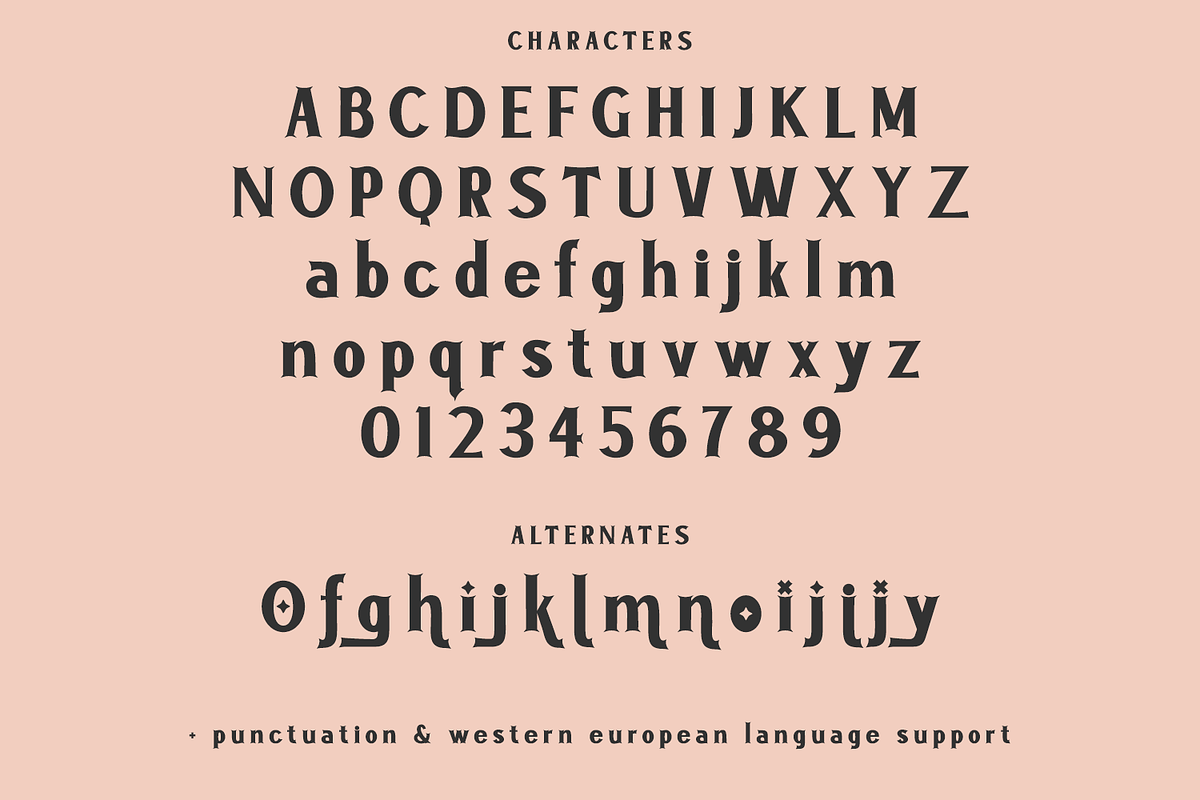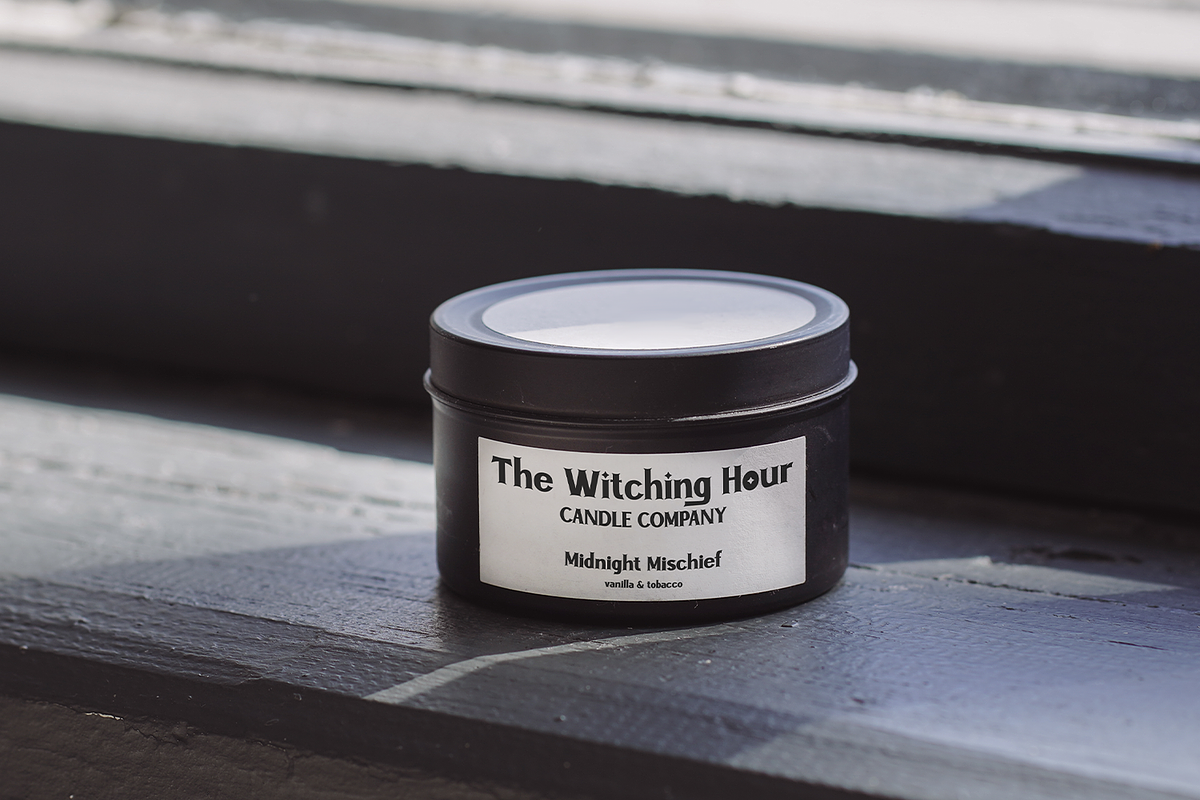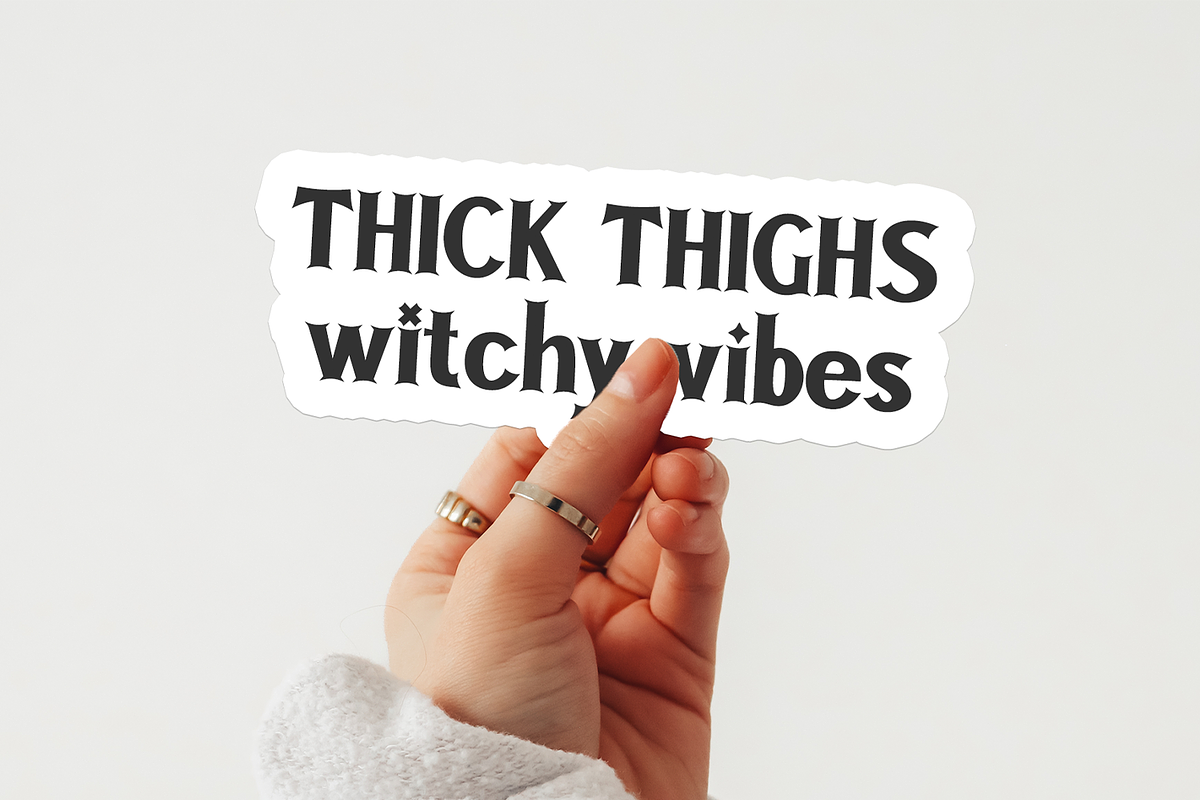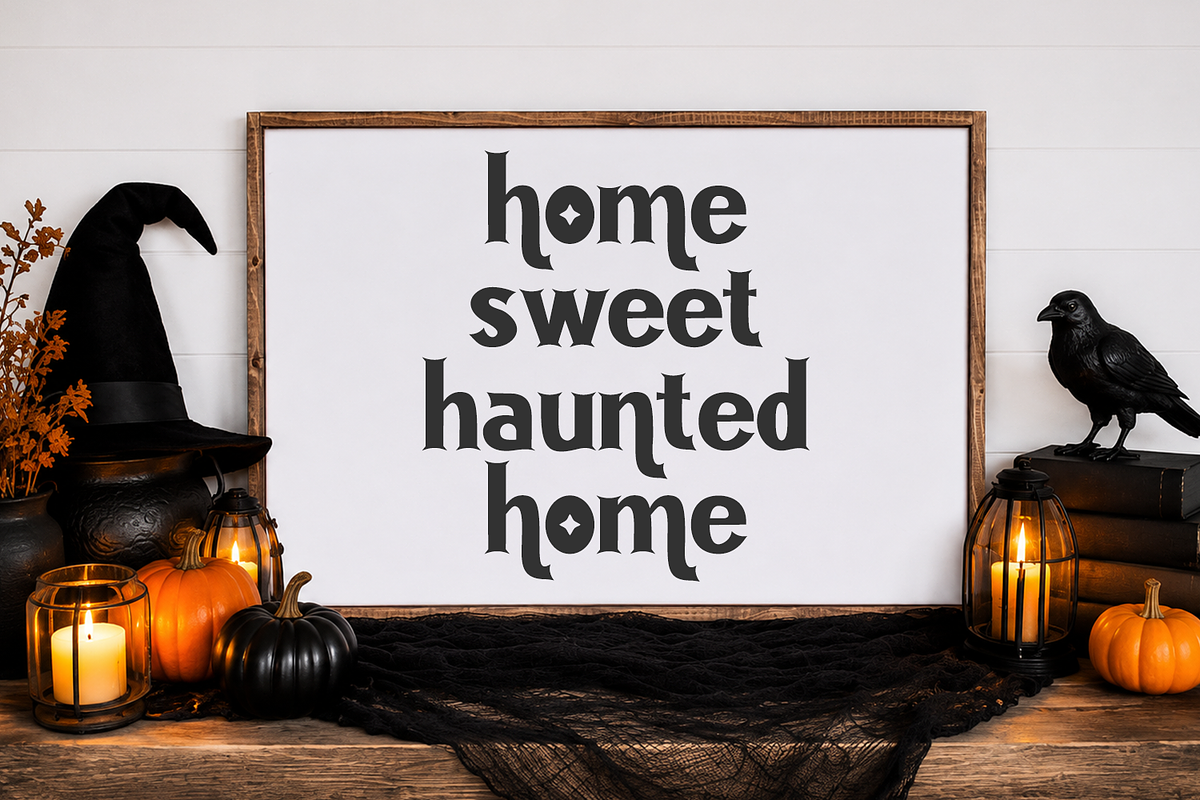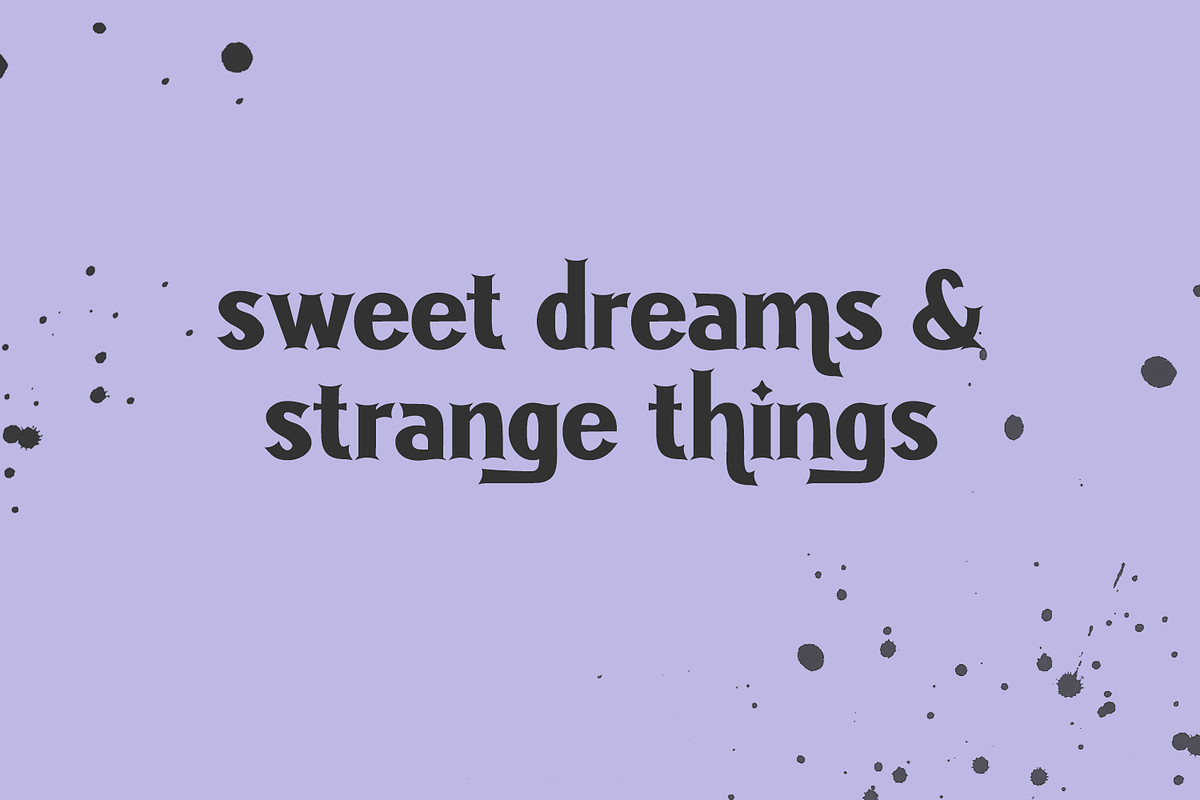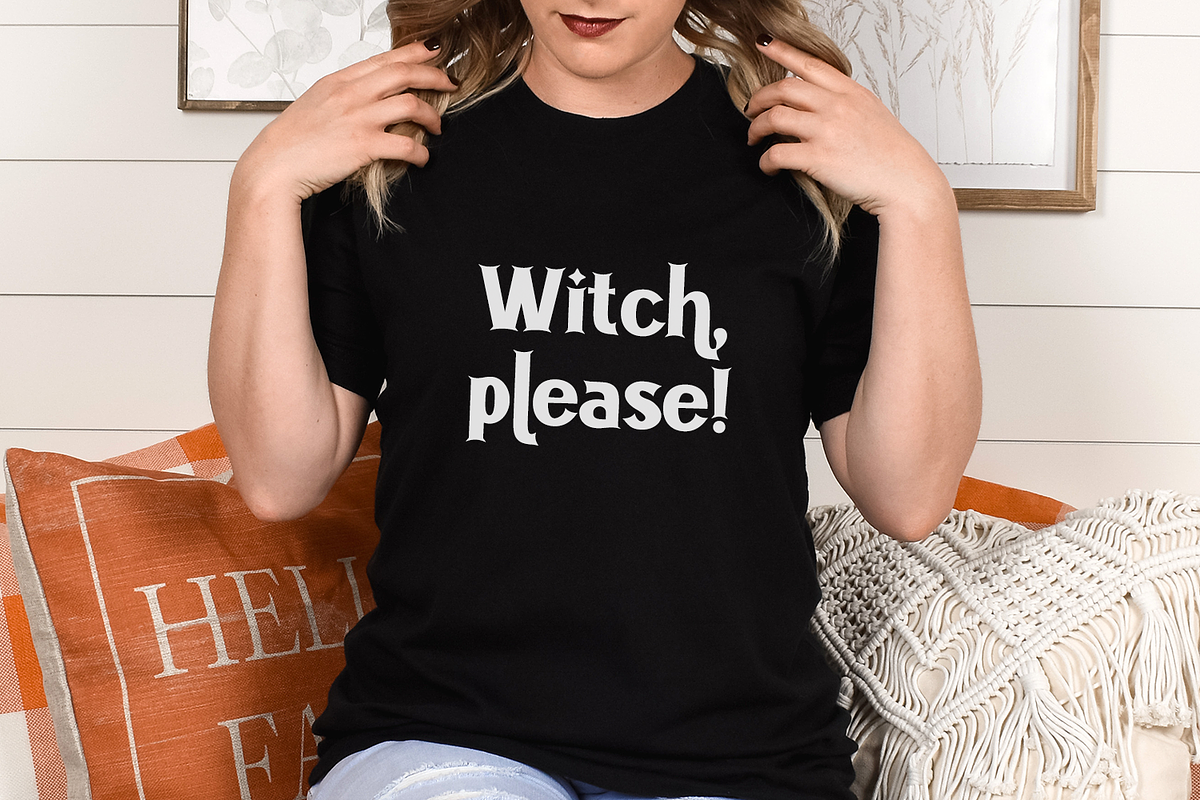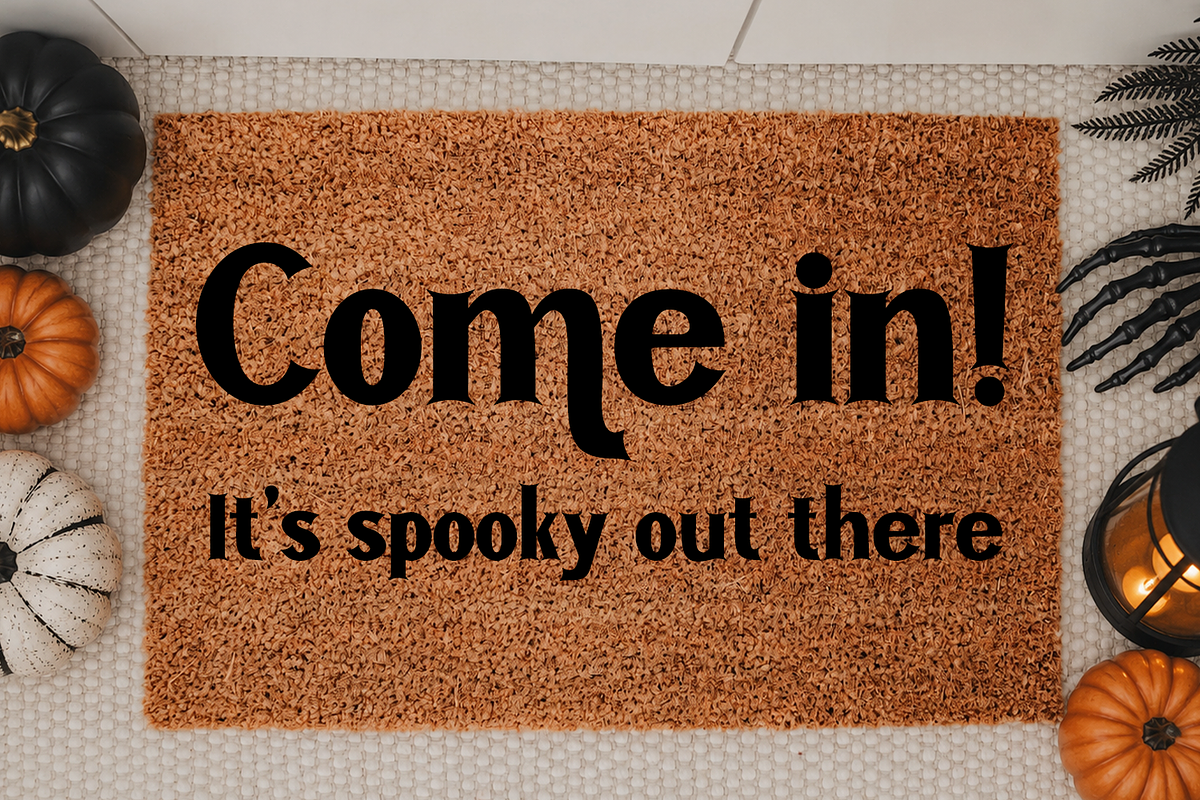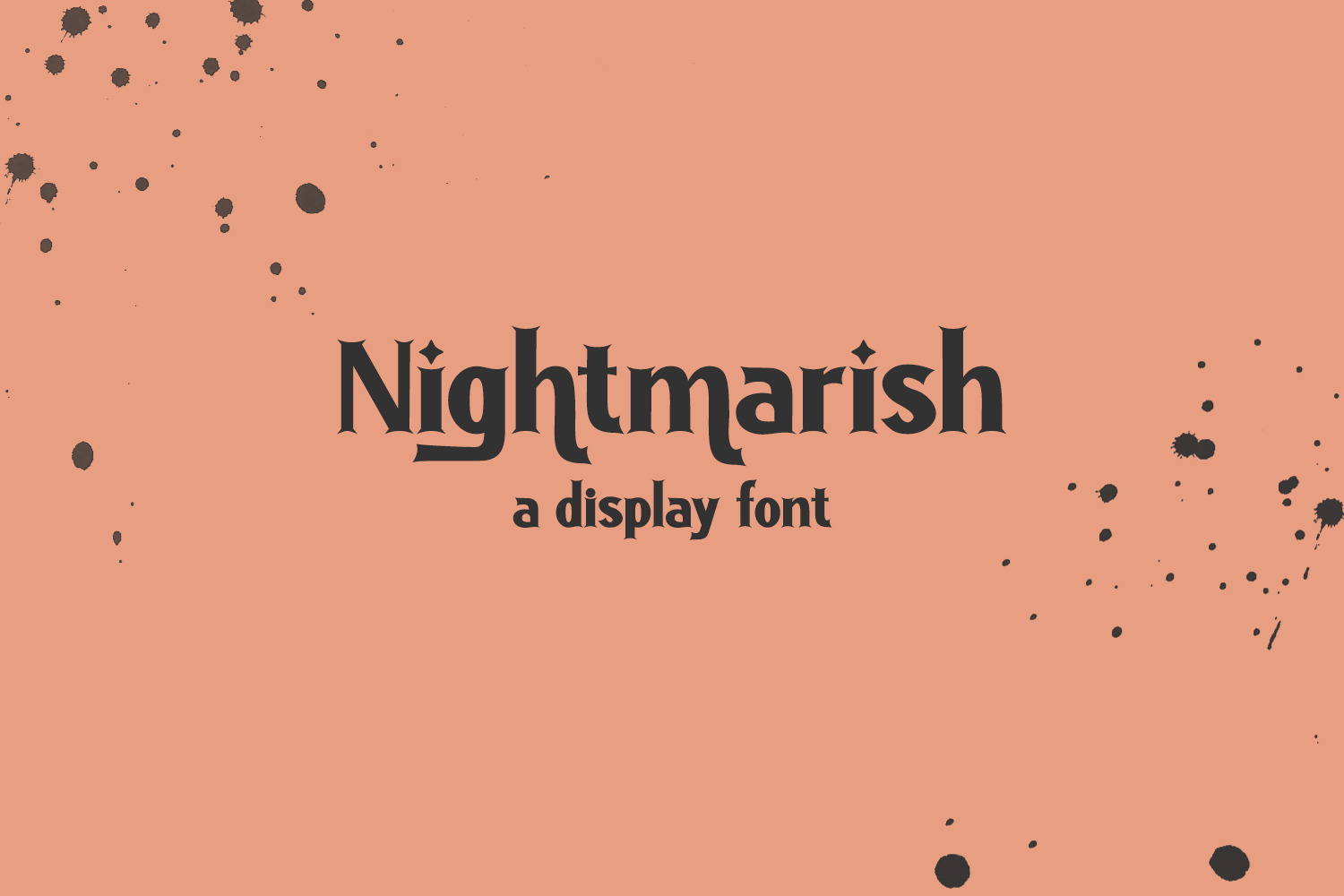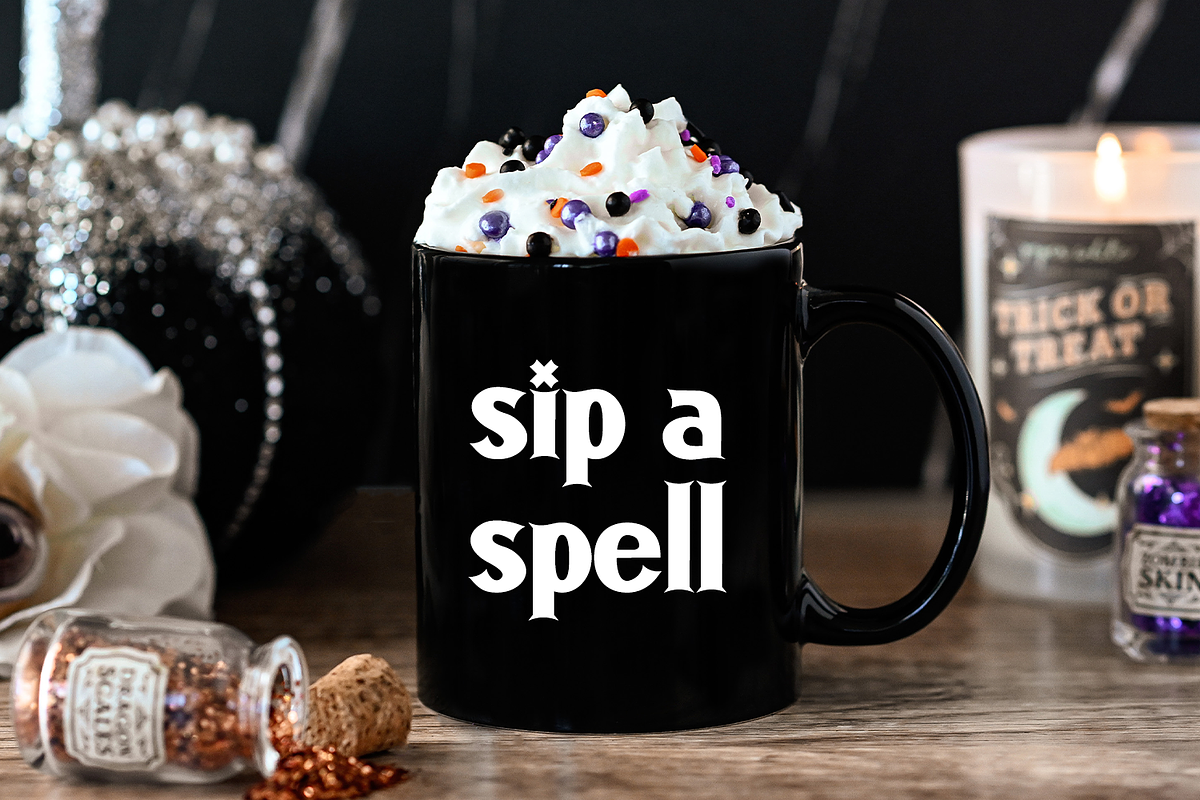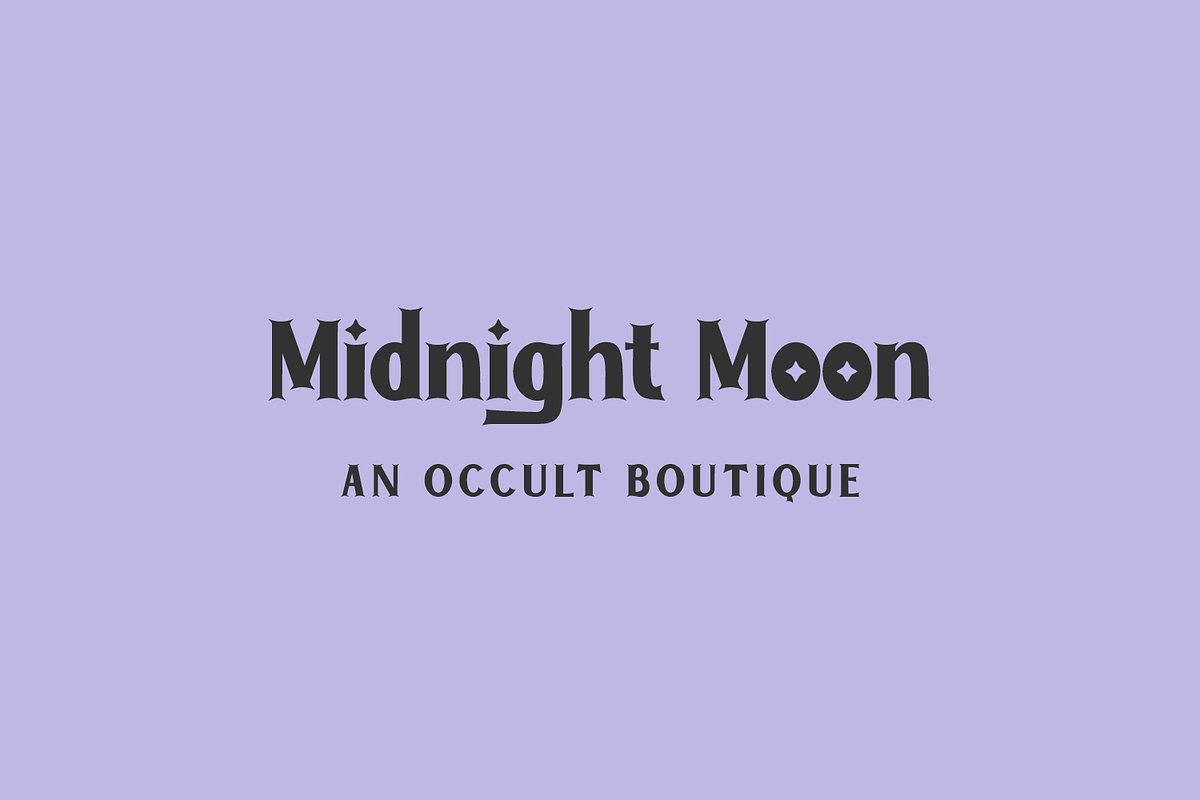
Nightmarish Serif Halloween Font
Nightmarish Serif is a bold font with small, sharp, pointy serifs. I love this font for things like tarot, occult, psychic, Ouija, and other mystical applications. It’s also a great fit for logos, branding, and even plenty of design items that aren’t related to Halloween & the occult at all! It’s quite a versatile, clean, legible font that can be used regardless of the time of year.
Nightmarish Serif includes:
- full upper + lowercase characters
- numbers + punctuation
- 16 alternates - O, f, g, h, i (x3), j (x3), k, l, m, n, o, y